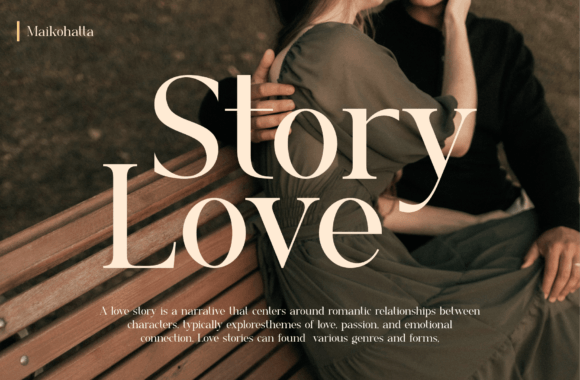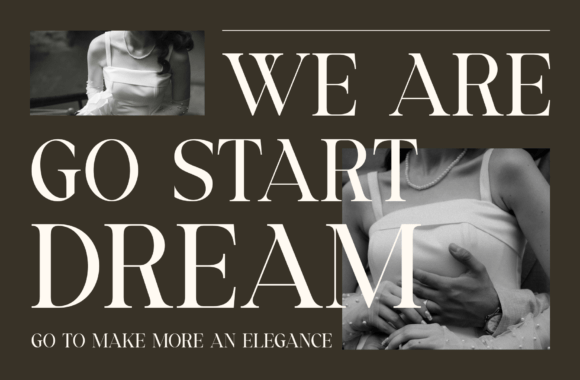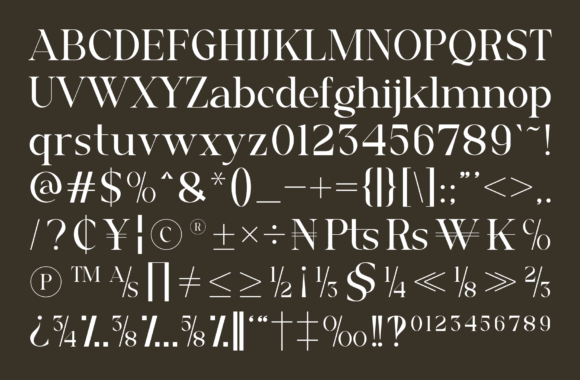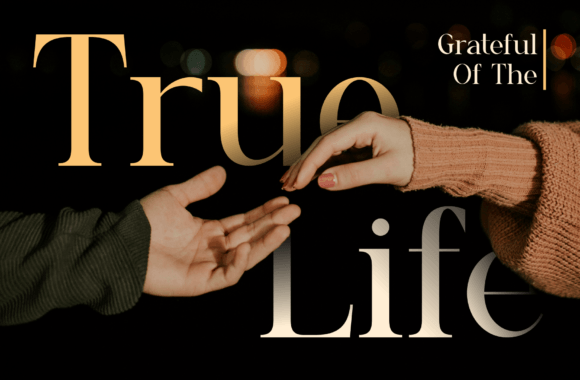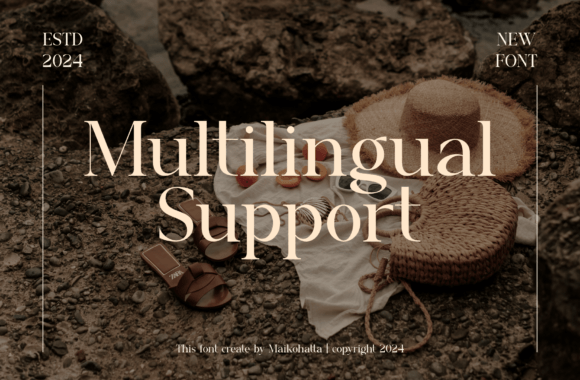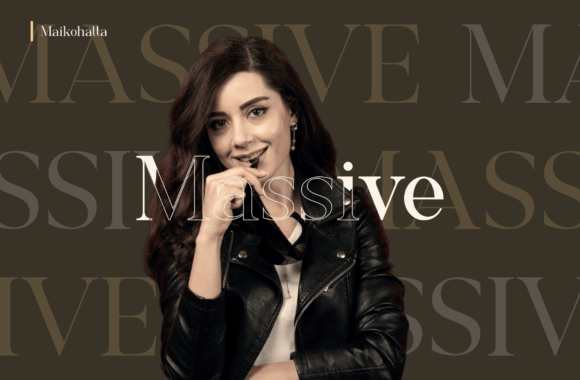
Introduction to Mustac Font
Introducing our new product **Mustac** – Modern Serif Typeface This font features a balanced proportion of stroke thickness and fineness, creating attractive and easy-to-read visuals.
This modern serif style is often characterized by a bold distinction between thick and thin lines, providing a touch that is understated but still stands out .
Key Features of Mustac Font